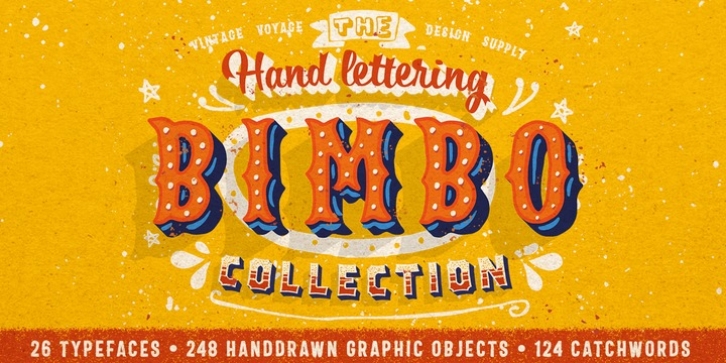
Publisher: Vintage Voyage Design Supply
If you need a simple way to get hand written / drawing style graphics – VVDS The BIMBO Collection is for you. Absolutely hand drawn lettering style collection gives you many styles for your graphic projects. Easy way to give your poster, or gift cards, or gift paper or something else a hand touch for really short time. 25 typefaces, 248 hand drawn graphics and 124 catchwords.